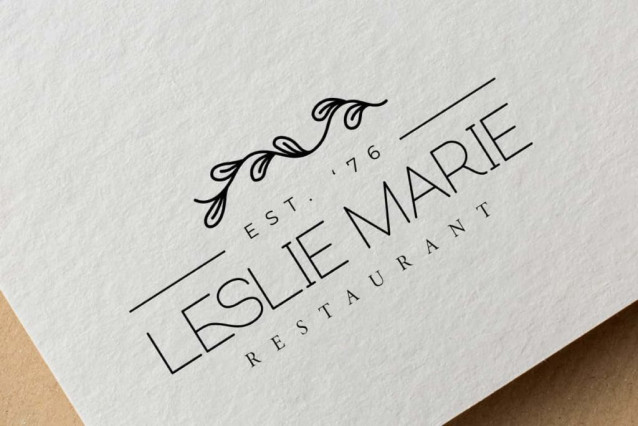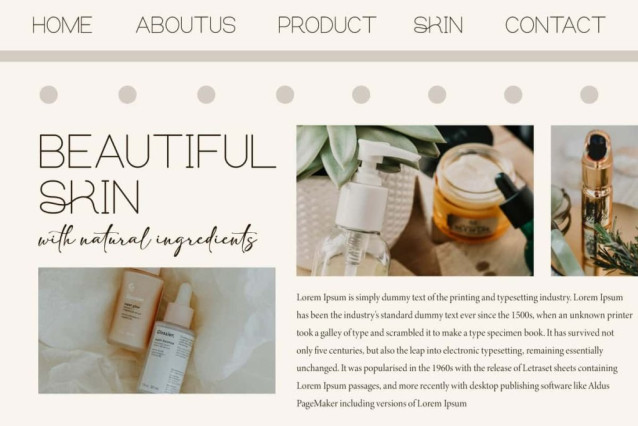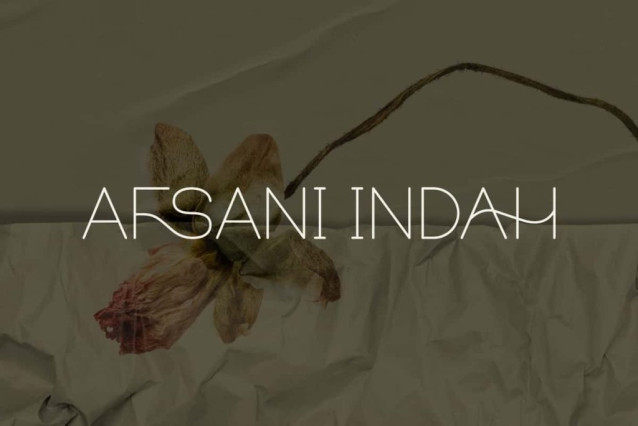
Afsani Indah Font
Afsani Indah Font is a beautiful soft sans serif display font, it can make your project style look different personally and more adorable. Perfect for banners, blogs, covers, custom bag, invitation, label, logos, menu, mockup, packaging, quotes, stationery, template, title, watermarks, website, etc.
Afsani Indah Font includes full set of Uppercase and Lowercase Basic Characters, Number, Punctuation, Symbol, and Ligature. Inspired by the timeless style but made a little subtle with rounded corners, perfect for accessories and gift, authors, beauty clinic, boutique, cafes, cosmetic, florist, graphic design, handicraft, home furniture, photography, restaurant, spa salon, and more.